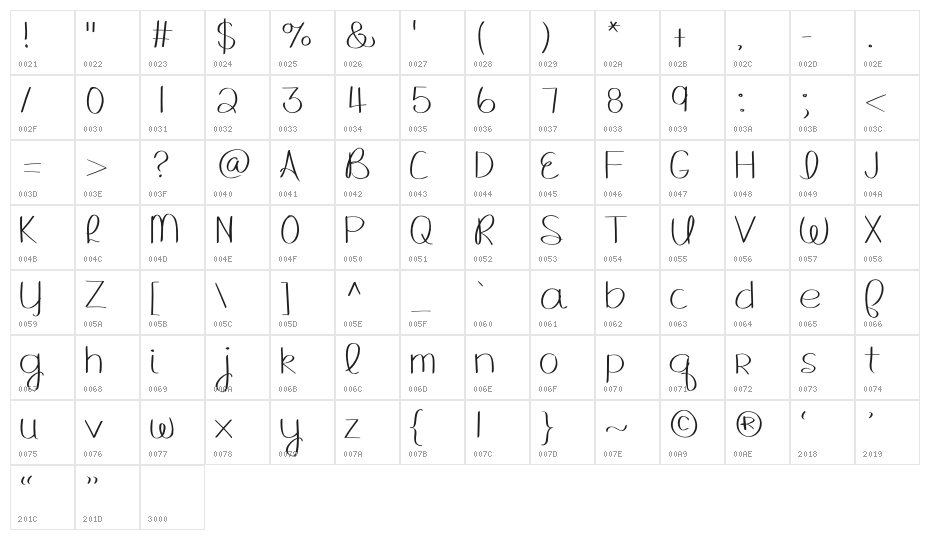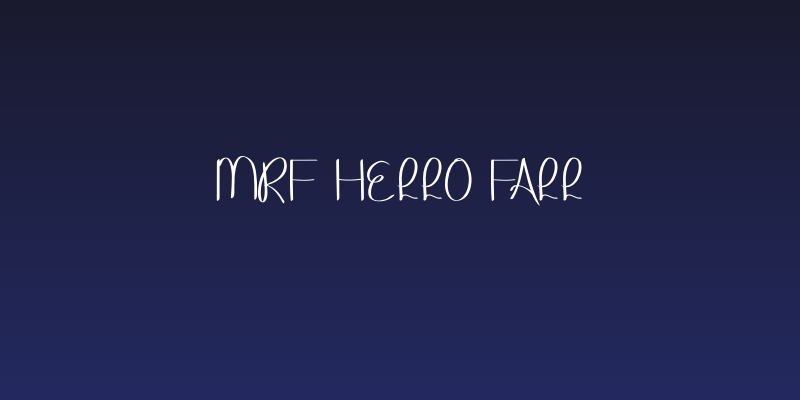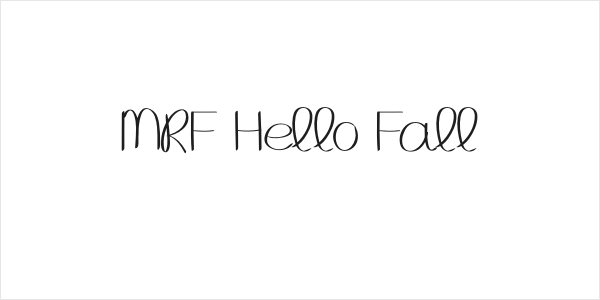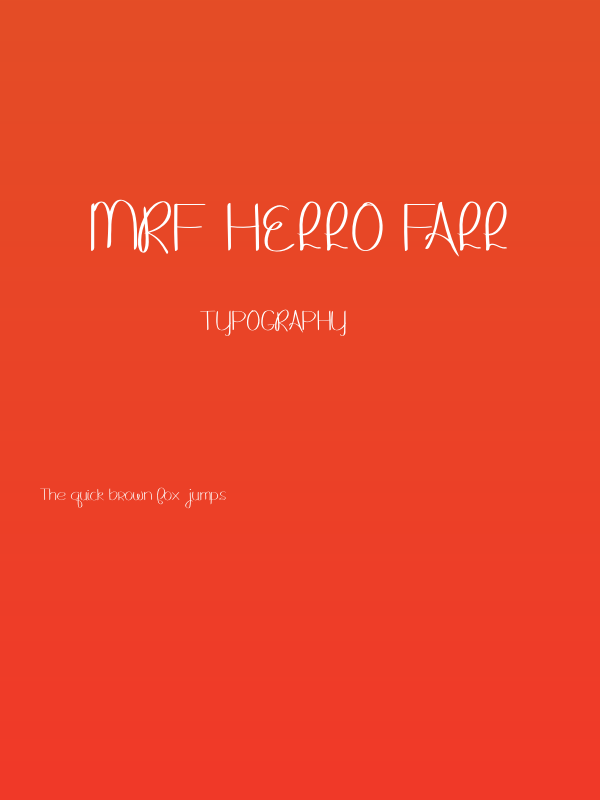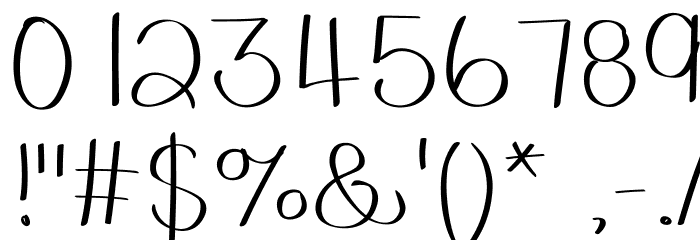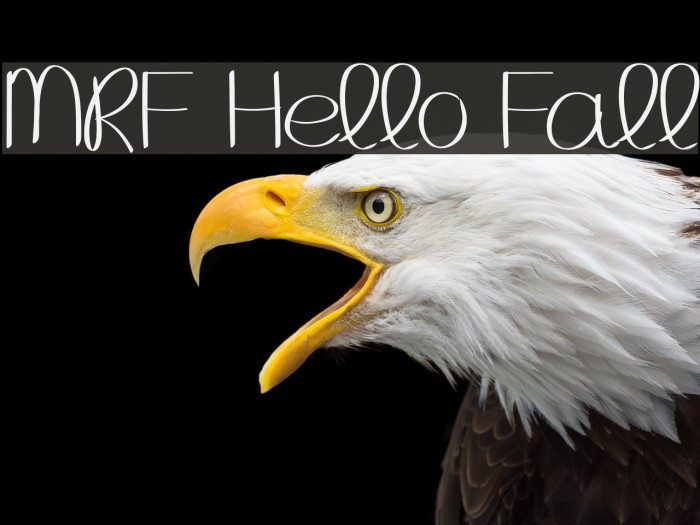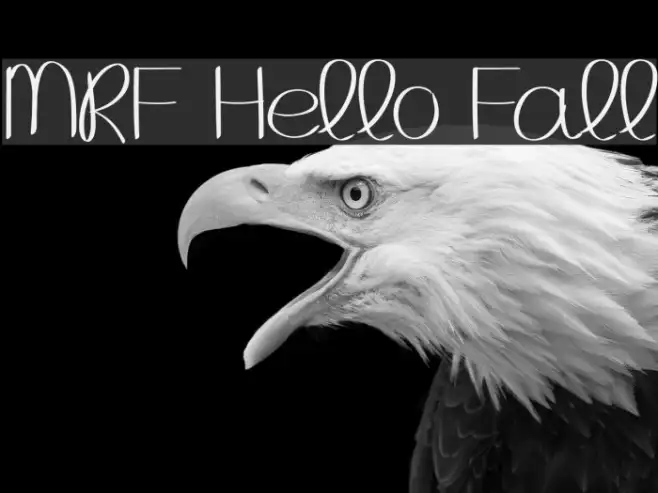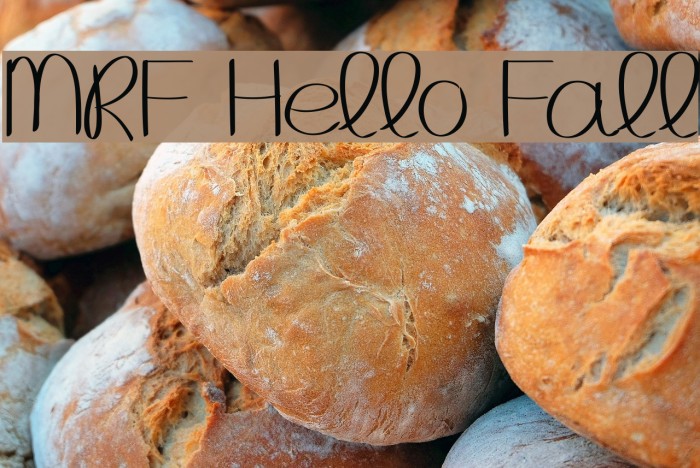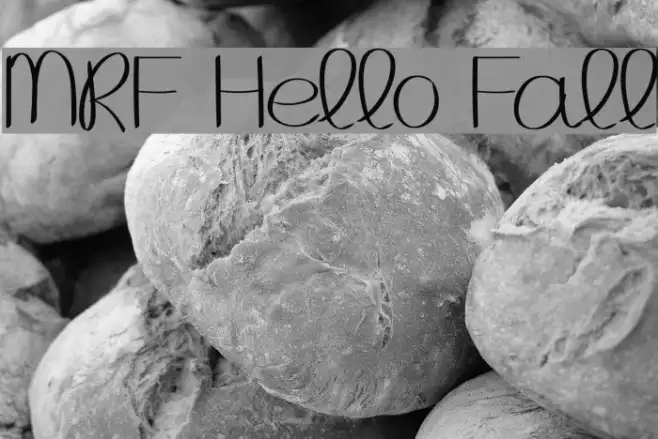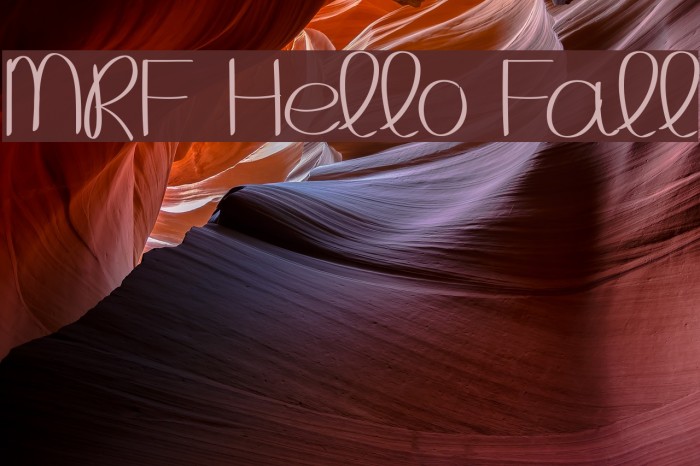
MRF Hello Fall Font
MRF Hello Fall Description
This font features a playful and whimsical handwritten style, characterized by its flowing, cursive-like letters. The uppercase and lowercase letters maintain a consistent height, giving it a uniform appearance. The strokes are smooth and rounded, with a slight slant that adds to its casual and friendly vibe. The numbers and special characters are designed to match the overall style, ensuring cohesion across all elements. This font exudes a sense of warmth and approachability, making it ideal for projects that require a personal touch.
| Proposed Projects | Greeting cards, invitations, personal branding, social media graphics, and children's book illustrations. |